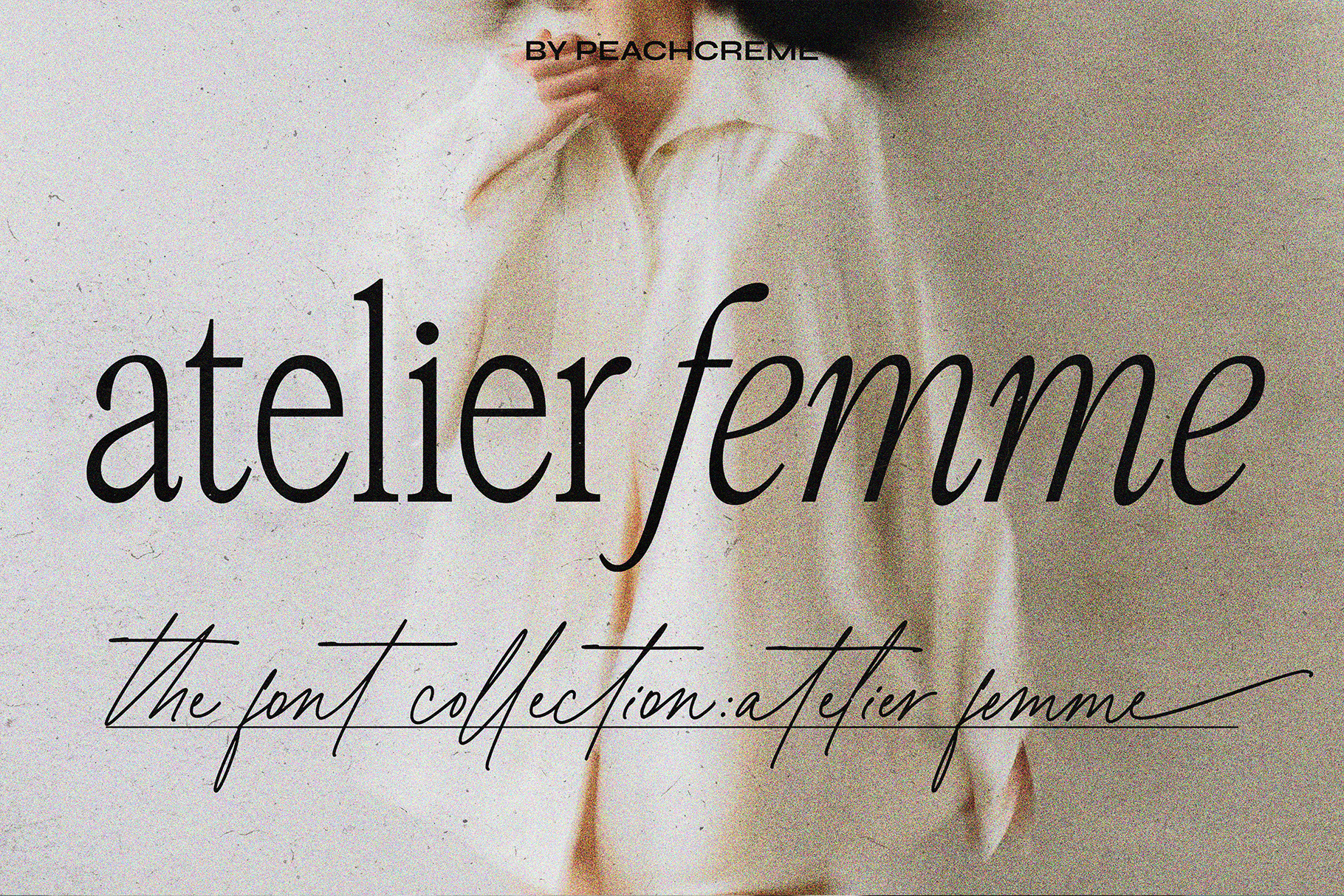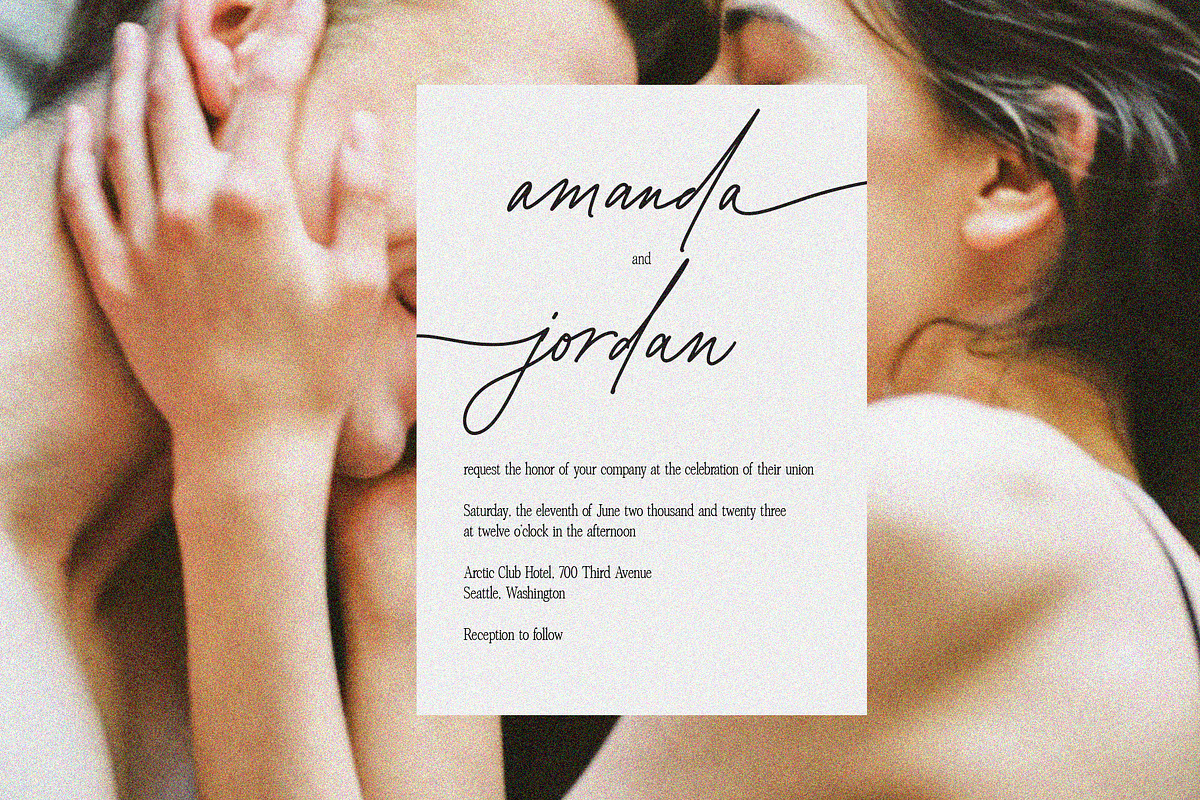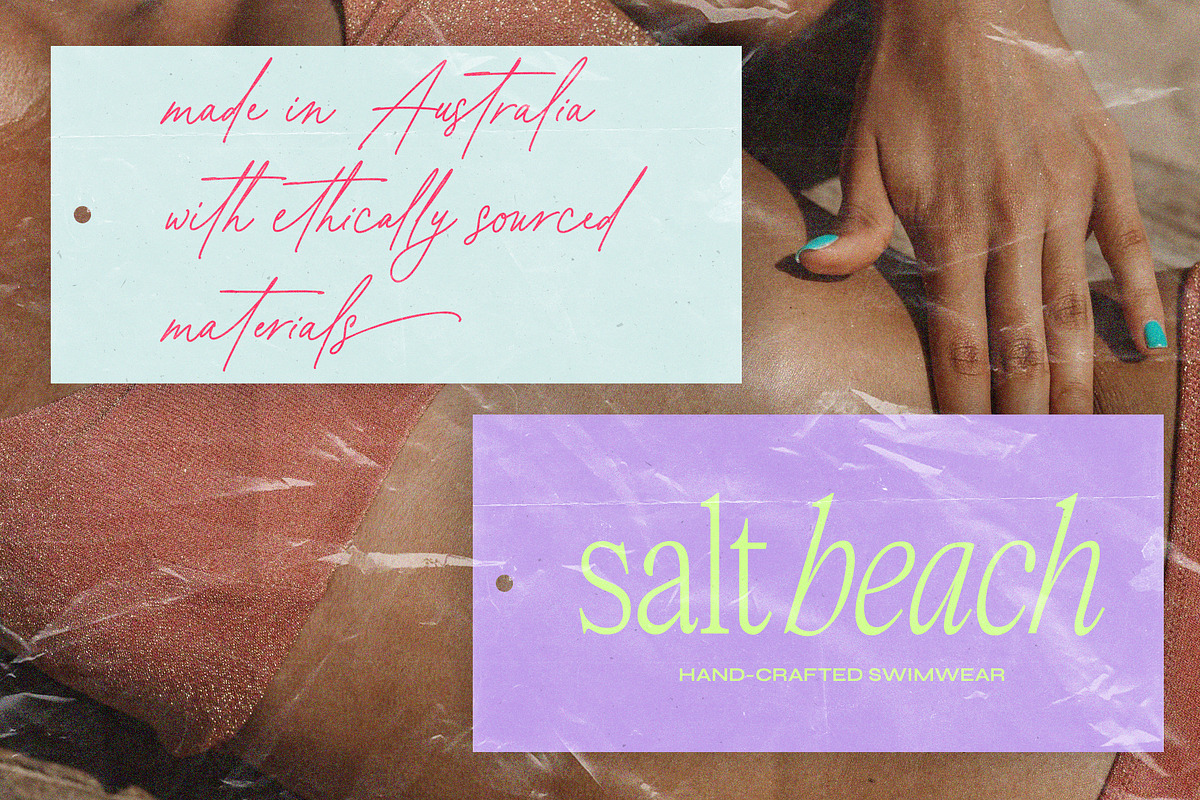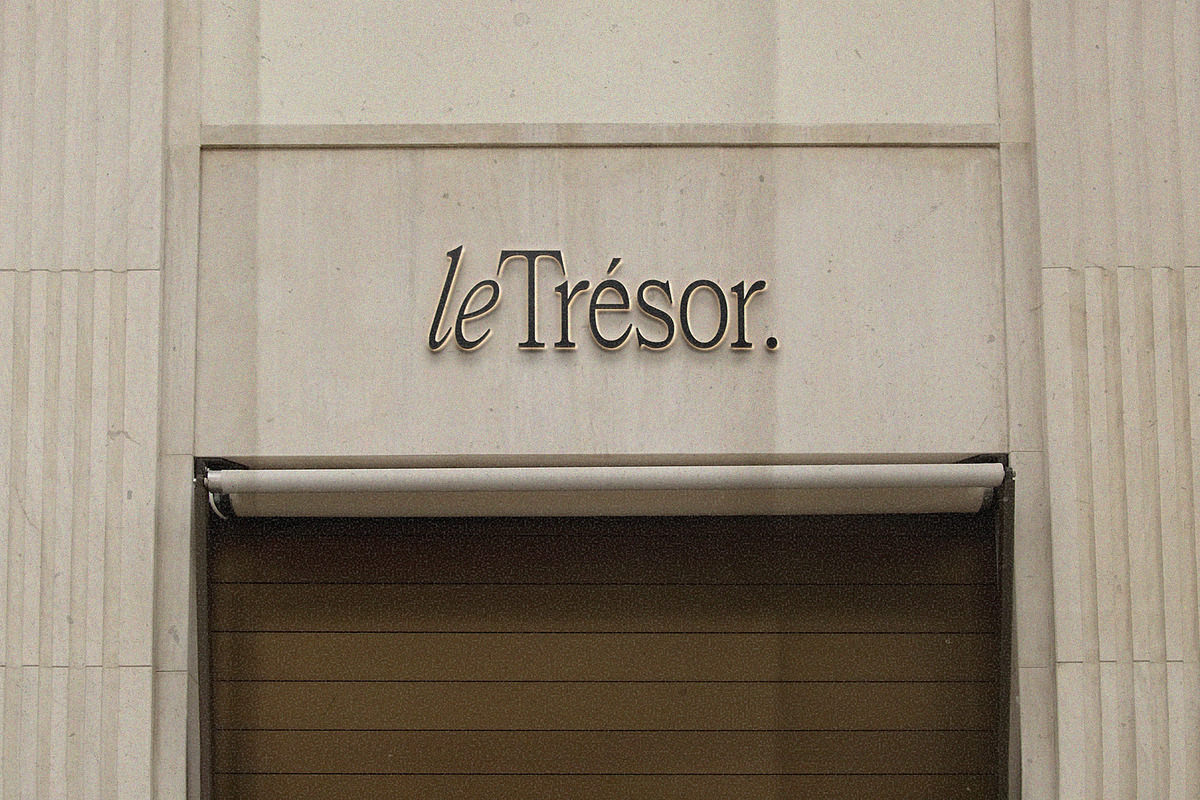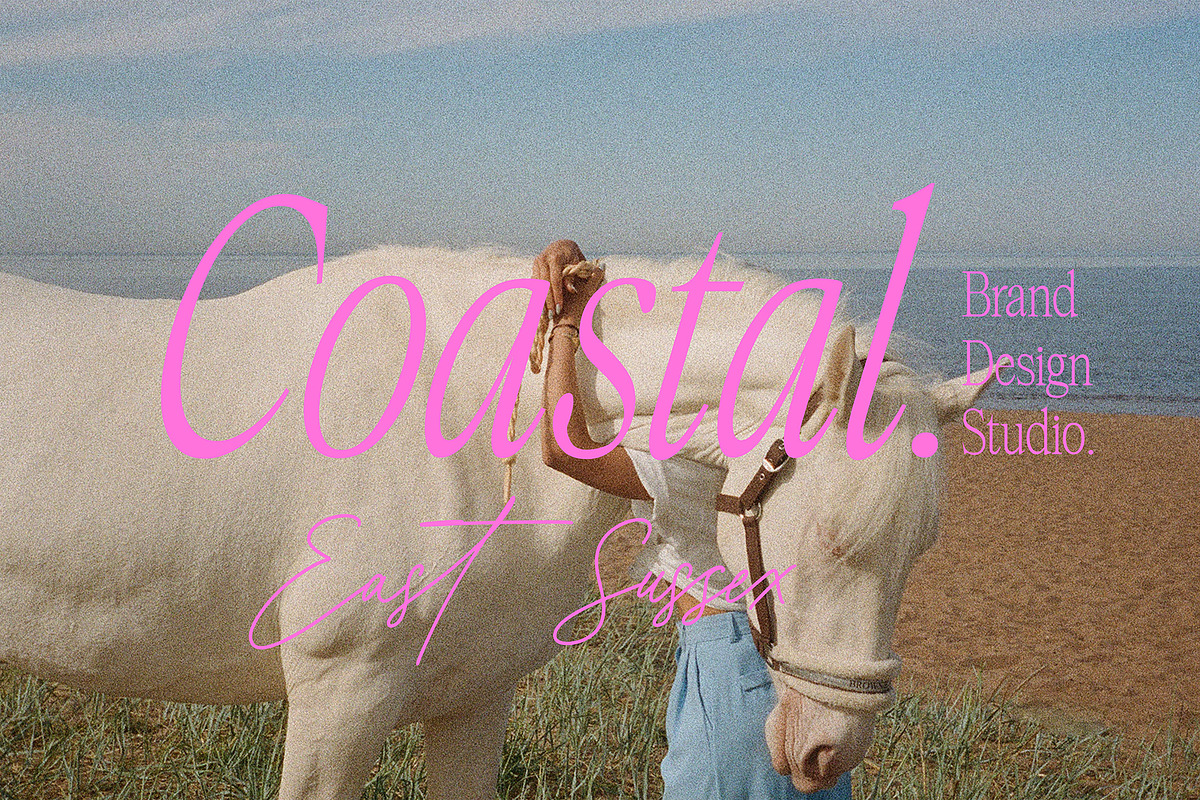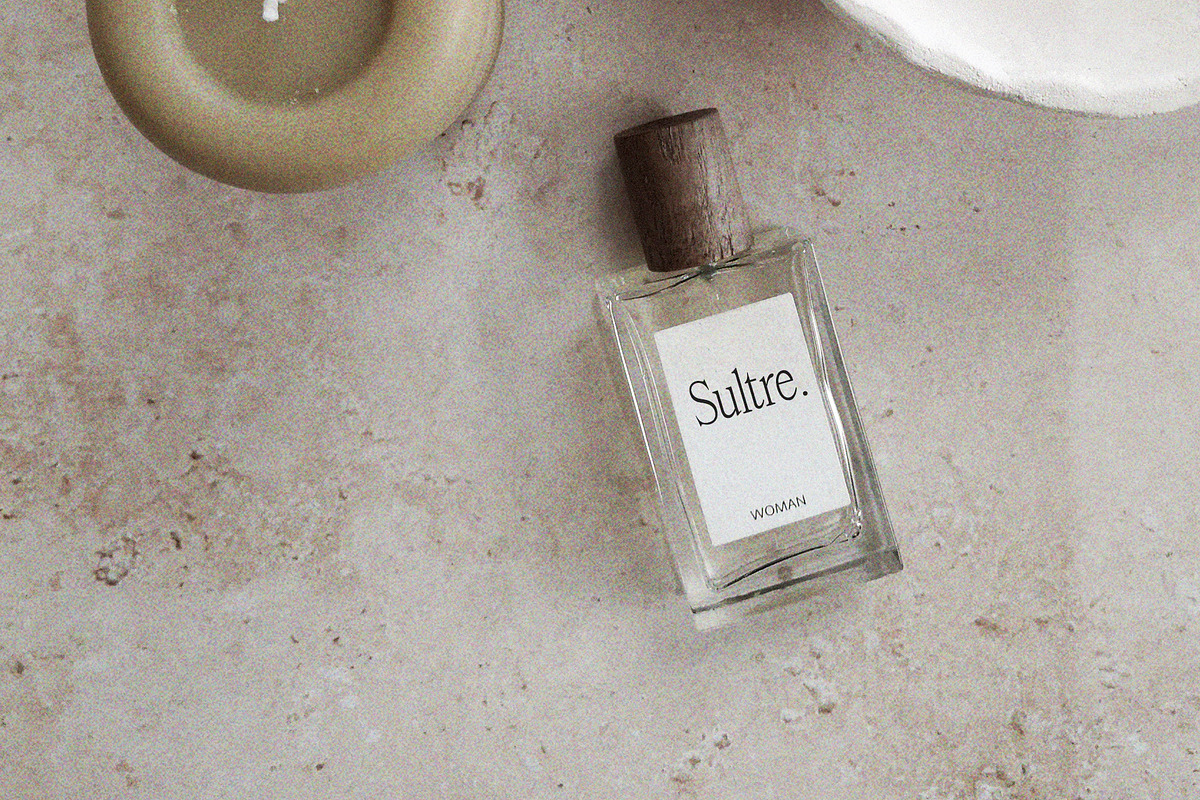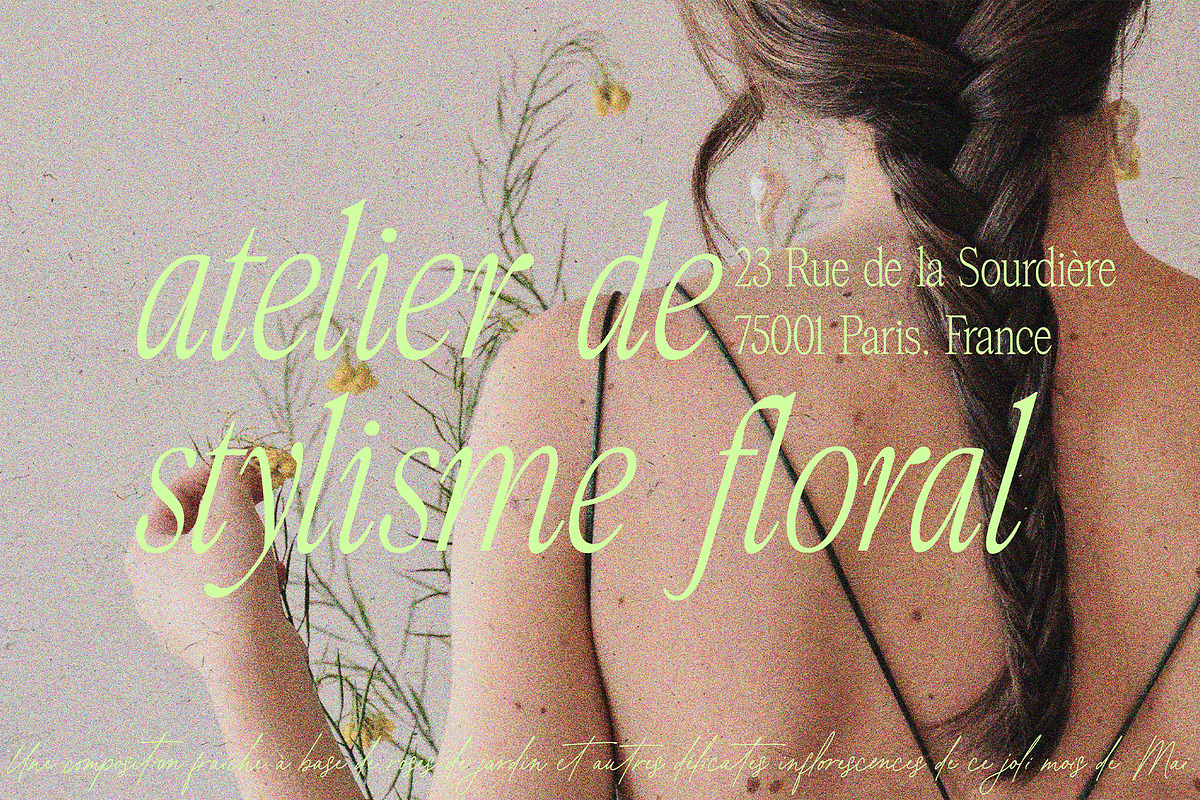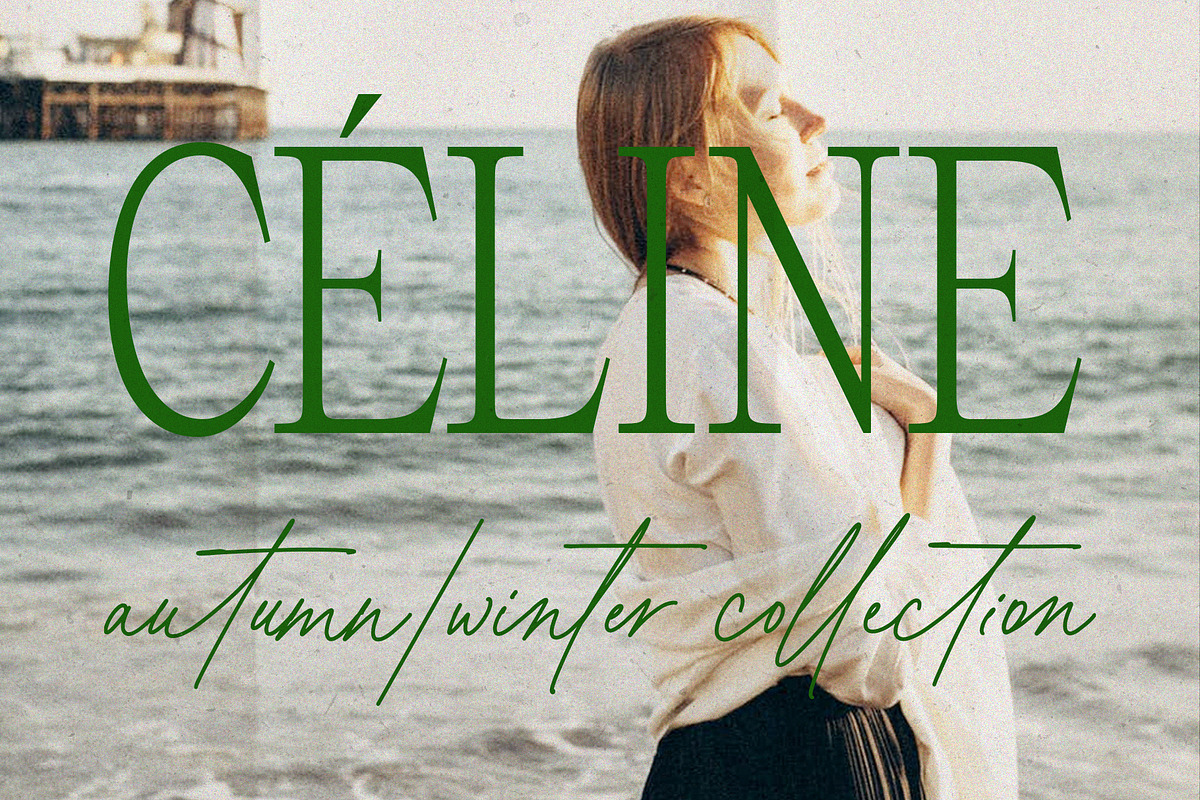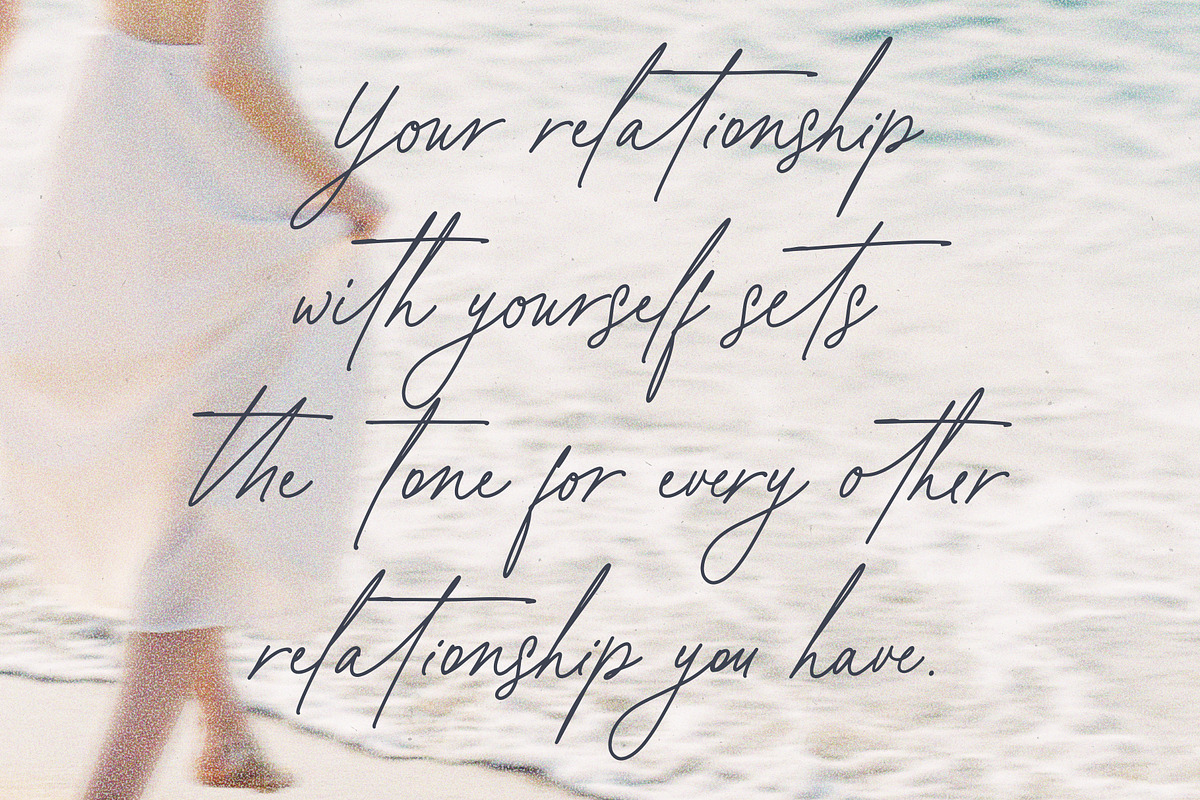
Atelier Femme // Modern Font Trio
Introducing our new font trio "Atelier Femme"! Featuring an elegant upright serif, light and clean italic, and a casual handwritten script, this trio brings a splendid, clean visage to websites, logos, brand identities, quotes, and anything else you can think of! Atelier Femme Serif - being something between light and regular, Atelier Femme Serif is a versatile font that gives your projects a modern and minimalist look. Atelier Femme Italic - is a classy and supremely legible font that stands out in both large and small designs be it a display or body text. Atelier Femme Script comes with adorable lowercase beginning and ending swashes and 68 quirky ligatures for a custom handwritten look. All three fonts provide a full set of uppercase and lowercase letters, numerals, and punctuation.